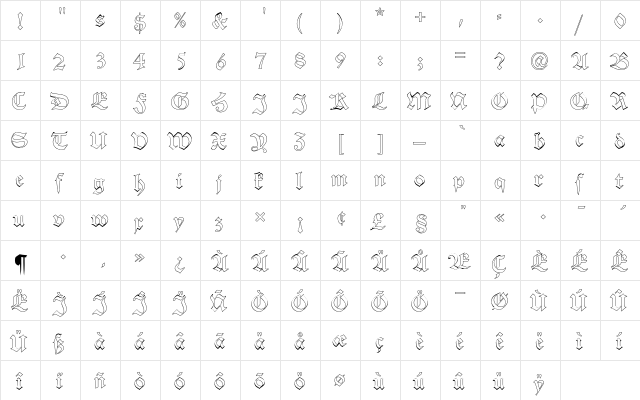
Alte Schwabacher D Ou1 Regular Font Preview
Alte Schwabacher D Ou1 Regular
Design Context for Alte Schwabacher D Ou1 Typeface
Alte Schwabacher D Ou1 takes a measured approach to typography — its balanced proportions and neutral character make it a reliable workhorse for both digital and print work.